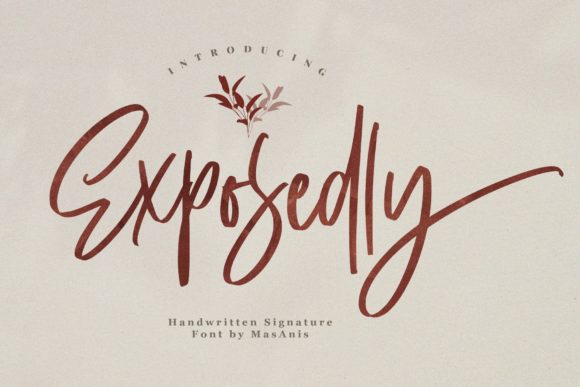
In a world pulsating with digital expressions, your words carry the power to dance off the screen and entrance your audience. Enter Exposedly, a script font that's not just a collection of letters, but an orchestra of visual delight, ready to serenade your designs with an enchanting melody.
Crafted with meticulous care by Mas Anis, Exposedly is a symphony of flowing curves and delicate strokes, each character a masterpiece that captivates the eye. Its graceful lines and elegant flourishes dance across the page, evoking a sense of timeless charm and undeniable allure.
Whether you're a designer weaving magic into invitations, a blogger painting words on a canvas of emotions, or a social media maestro crafting captivating posts, Exposedly is your virtuoso, your secret weapon to transform ordinary text into a visual feast.
With Exposedly, your designs will transcend the mundane and blossom into expressions of pure artistry. Unleash your creativity and watch as your words morph into captivating melodies, leaving an indelible mark on your audience's hearts.
Embrace Exposedly, the script font that's more than just a font - it's an experience, a journey into the realm of visual enchantment. Let your designs sing, let your words dance, and prepare to be mesmerized by the sheer brilliance of Exposedly.